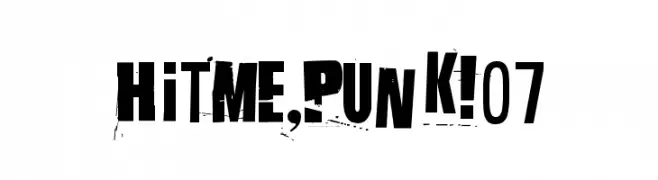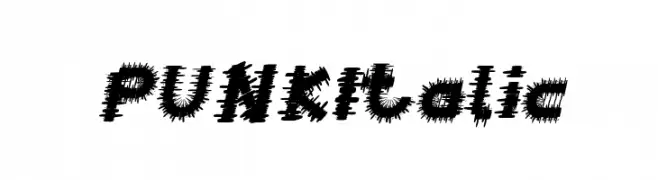
( Fonts by Ryan Splint )
A bold, gothic-style font with jagged edges and decorative flourishes, perfect for dramatic themes.
( Fonts by Cumberland Fontworks - http://www222.pair.com/sjohn/fonts.htm - S. John Ross )
A chaotic, edgy font with jagged, distressed strokes.
( Fonts by Scott Dieznyik - Kejak (formerly Cheops) )
A glitch-inspired font with bold, distorted characters and a digital aesthetic.
( Fonts by Daniel Gauthier )
A bold, decorative font with punk rock influences and unique cut-out shapes.
( Fonts by Gyom Seguin - last-soundtrack.daportfolio.com )
A distressed, grungy font with a chaotic and edgy aesthetic.
( Fonts by Ryan Splint )
A bold, distressed font with a rugged, grunge-like appearance.
( Fonts by Lecter Johnson - doubletwostudios.tumblr.com )
A distressed, chaotic font with jagged, scratch-like strokes.
( Fonts by Gyom Seguin - last-soundtrack.daportfolio.com )
A rebellious, hand-drawn font with a rock and punk aesthetic.
( Fonts by Pi Luo Chiu - thisisallenchiu.tumblr.com )
A bold, grunge-style font with sharp, angular strokes and splatter textures.
( Fonts by Press Gang Studios - Andeh Pinkard - www.pressgang-studios.com )
A bold, energetic handwritten font with a rebellious edge.
( Fonts by Altsys Metamorphosis )
A dot matrix font with a retro digital display style.
( Fonts by Altsys Metamorphosis )
A dot matrix-inspired font with a modern, digital aesthetic.
( Fonts by Altsys Metamorphosis )
A modern, dotted font with a digital display aesthetic.
( Fonts by Altsys Metamorphosis )
A modern, dotted font with a digital, LED display style.
( Fonts by Altsys Metamorphosis )
A dot matrix style font with a bold, retro digital display look.
( Fonts by Altsys Metamorphosis )
A pixelated, dot matrix font reminiscent of vintage digital displays.
( Fonts by Steve Cloutier - www.cloutierfontes.ca )
A distressed, grungy font with bold, textured characters.
( Font by Jonathan Harris - www.tattoowoo.com )
A bold, chaotic font with a stitched, distressed appearance.